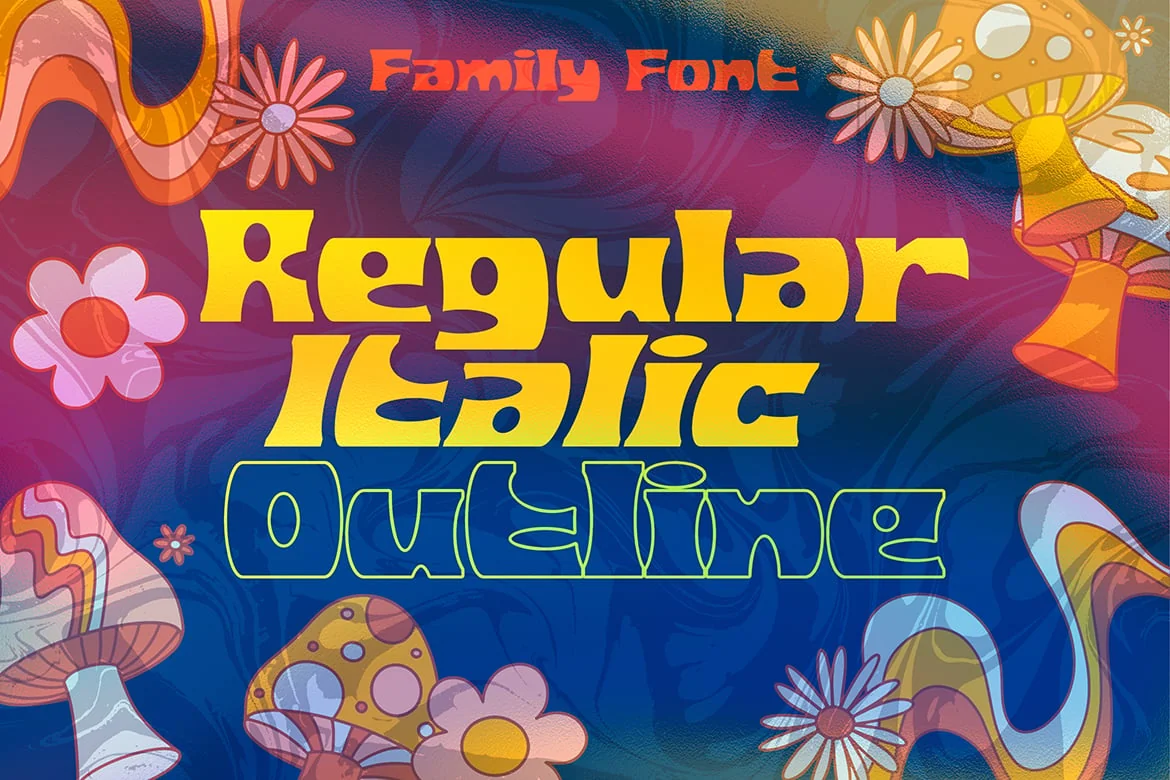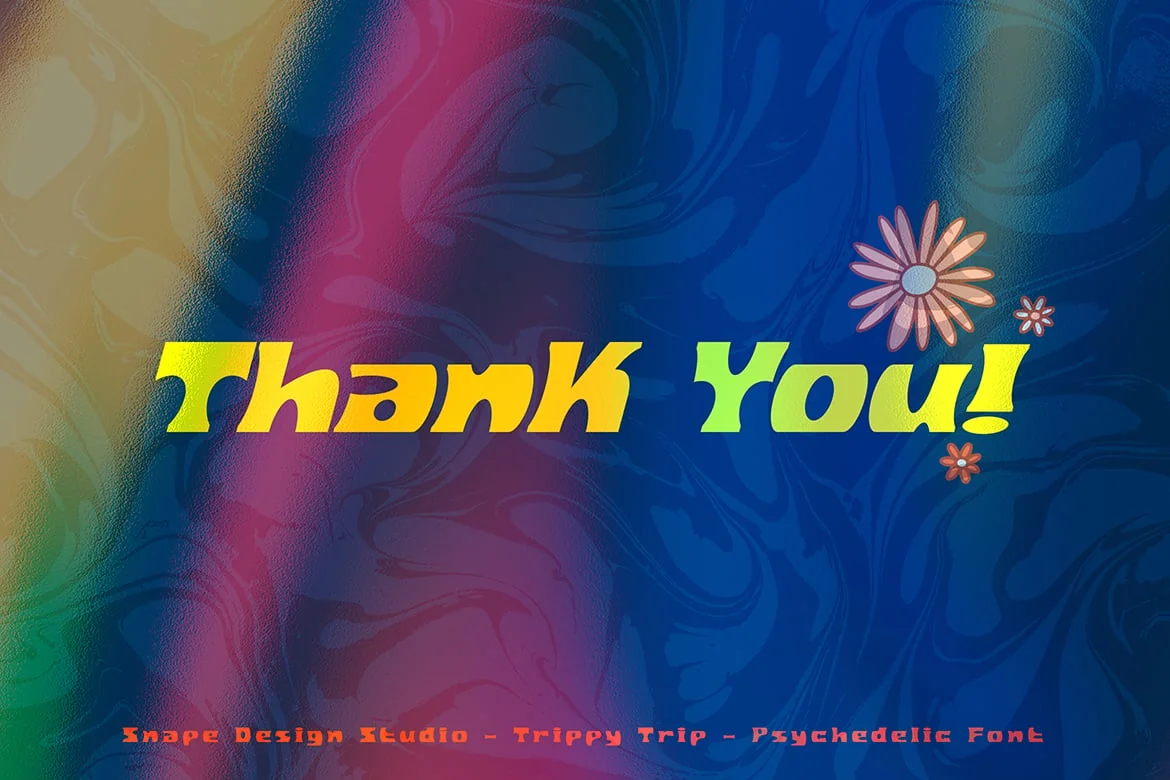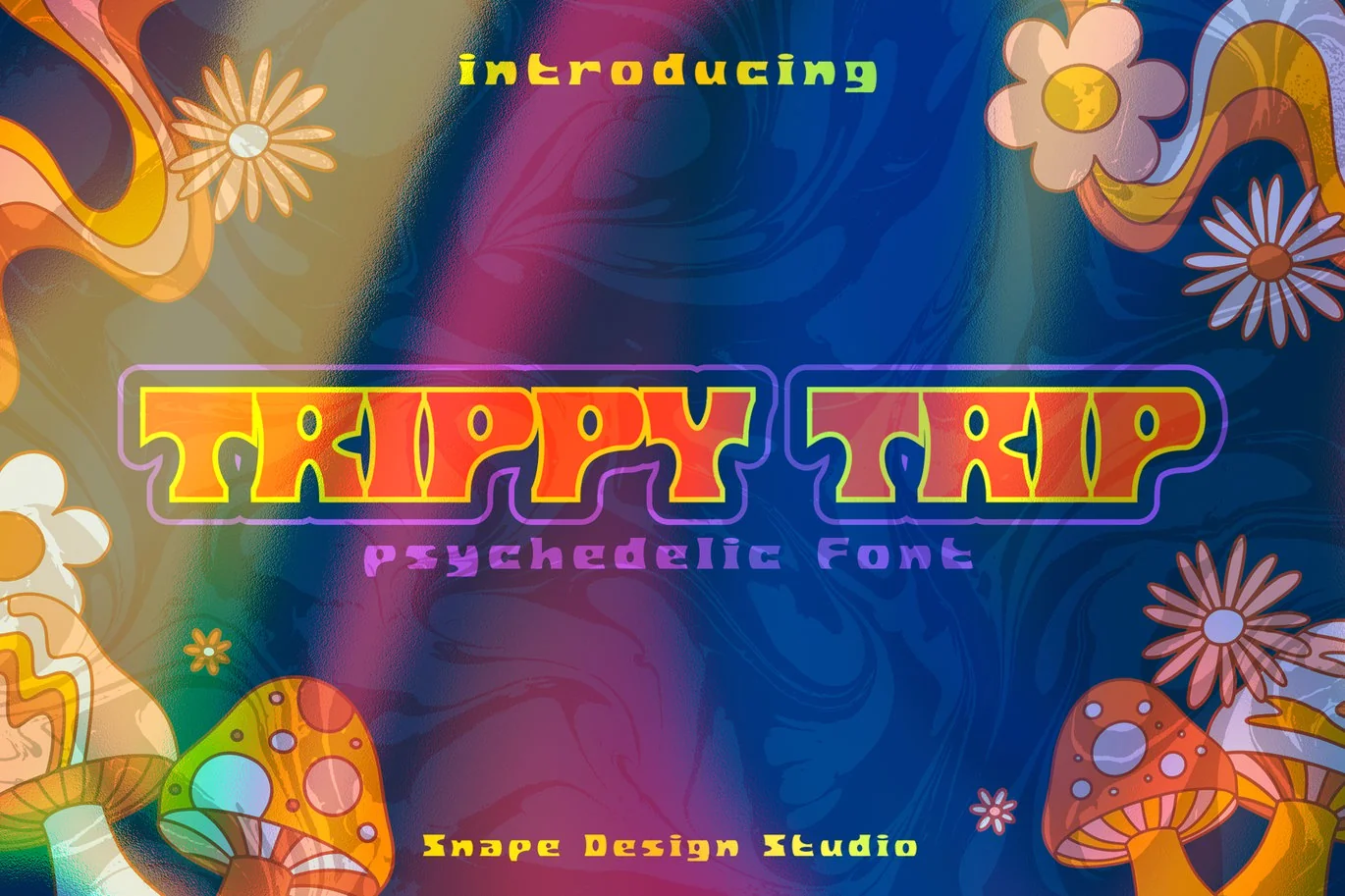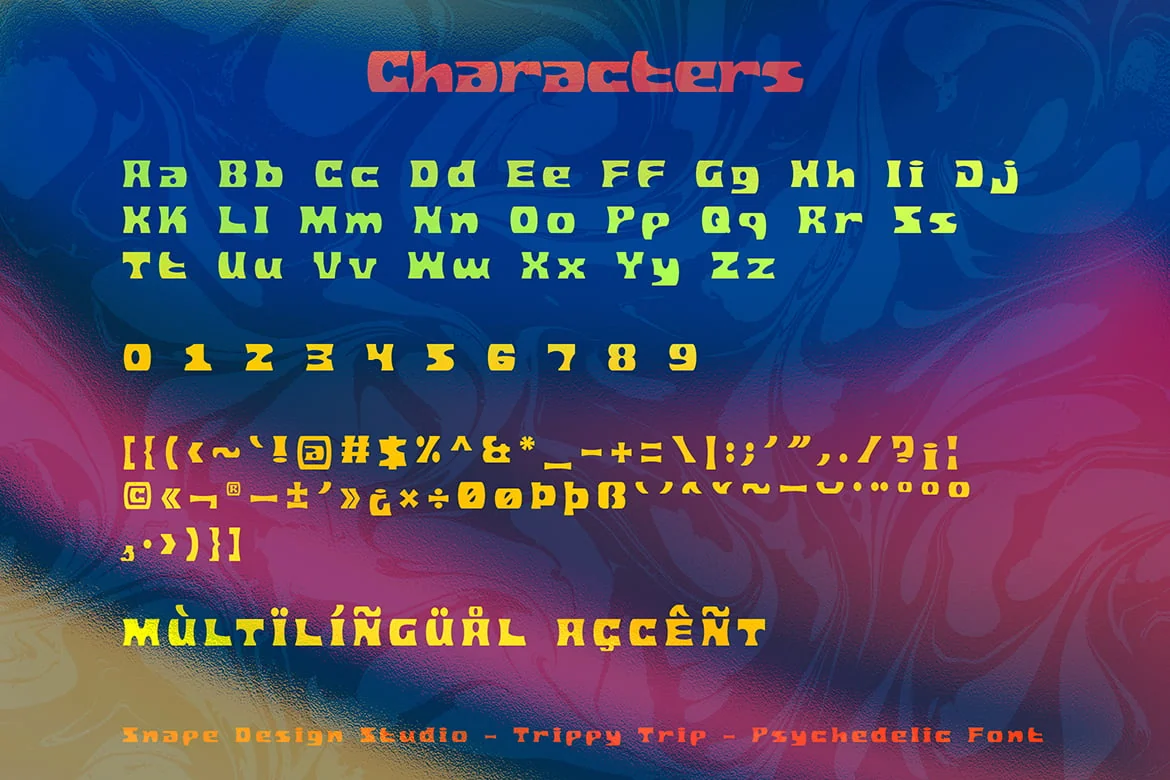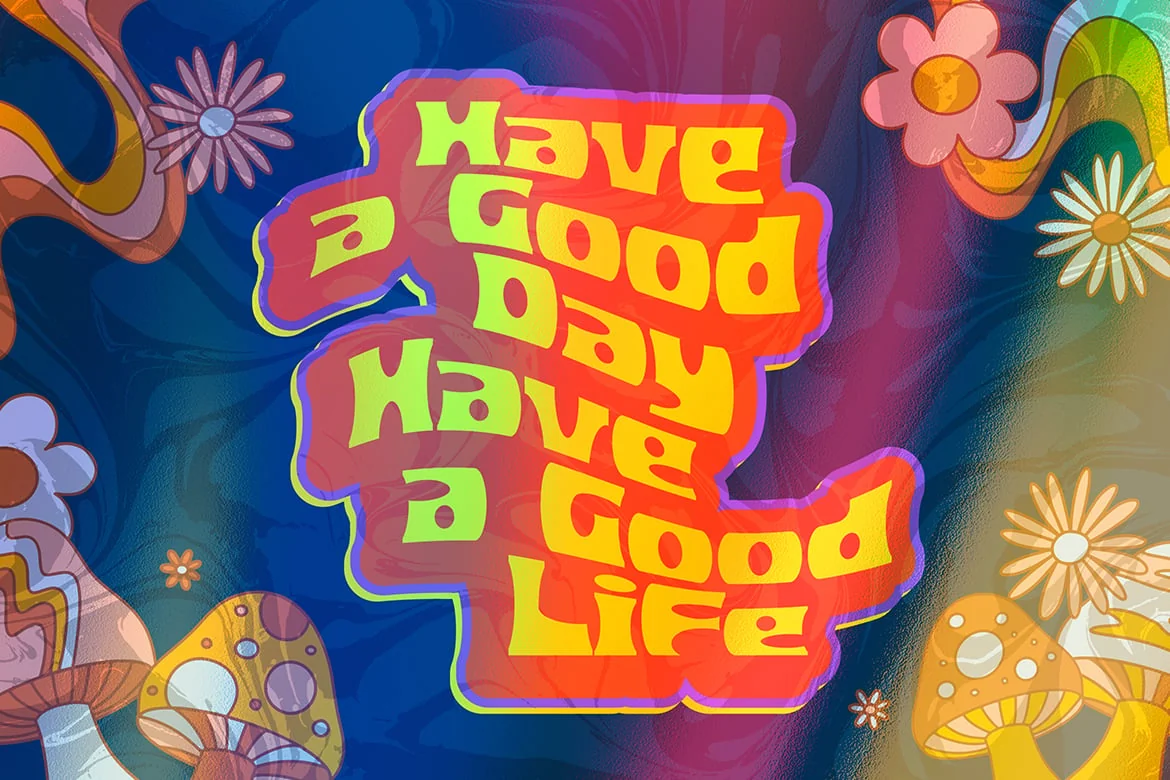
Trippy Trip – Psychedelic Font
Trippy Trip is a Psychedelic Font. Mind Explorer is a psychedelic style font. This font is inspired by vintage albums and posters from 1960s music bands. The classic, fun and groovy impression is very visible. Also suitable for movie, documenter, film, logo, poster, game, book cover, headlines, title and many more projects. Add this font to your creative ideas and notice how it will make them stand out!